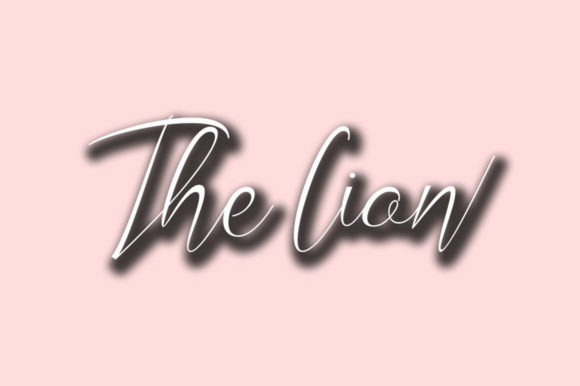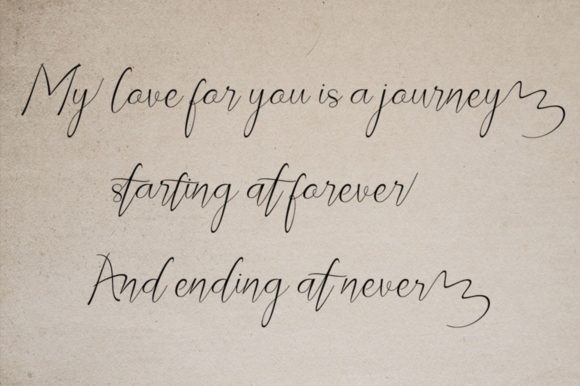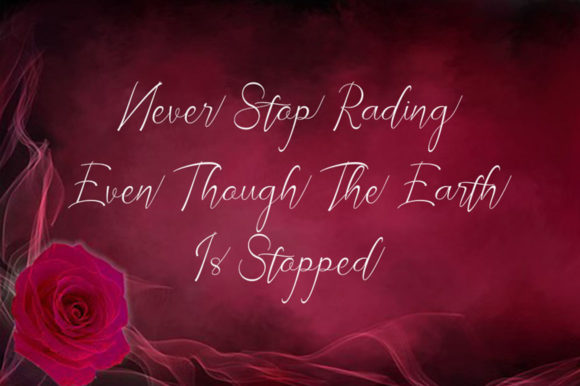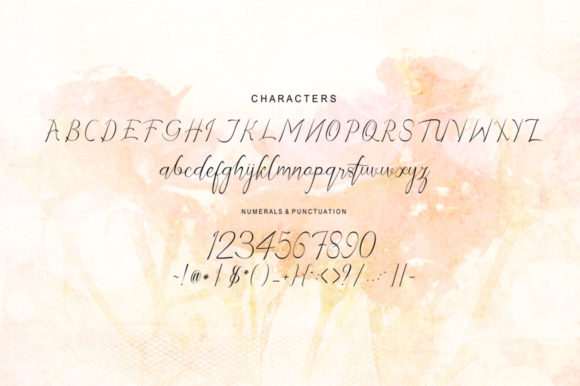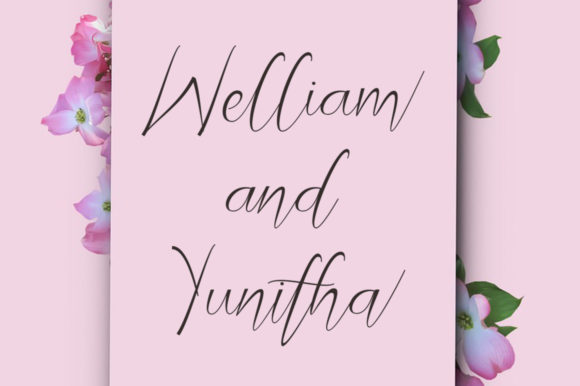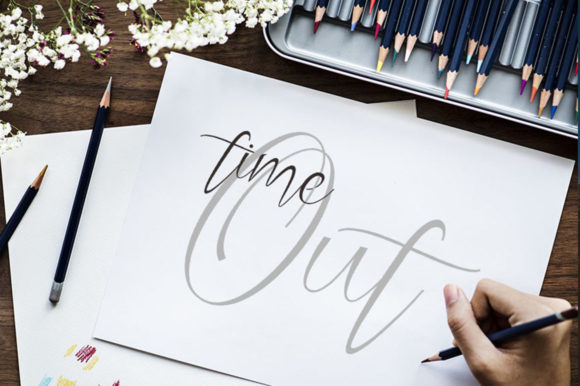
Discover the Elegance of Emithend Font: Elevate Your Designs with Luxurious Flair
The Emithend Font is a stunning script that combines fine lines with classic, modern, and feminine touches, making it the perfect addition to any designer’s toolkit. This beautiful font is designed to give your designs an luxurious feel, evoking a sense of sophistication and elegance. In this article, we’ll dive into the world of Emithend Font, exploring its features, uses, and benefits for designers and crafters.
The Characteristics of Emithend Font
The Emithend Font boasts a unique blend of classic and modern elements, making it a versatile and eye-catching choice for a wide range of design projects. Its fine lines and delicate curves give it a feminine touch, while its sleek and streamlined appearance ensures it remains modern and fresh. This font is perfect for designers who want to add a touch of luxury and sophistication to their work.
Uses of Emithend Font
The Emithend Font is incredibly versatile and can be used in a variety of design projects, including:
- Logos and branding: The Emithend Font’s luxurious feel makes it an excellent choice for logos and branding materials, helping to establish a high-end image for your business or product.
- Wedding and event invitations: The font’s elegant and sophisticated appearance makes it perfect for wedding and event invitations, adding a touch of romance and glamour to your designs.
- Packaging and product design: The Emithend Font can be used to create eye-catching packaging and product designs that stand out on store shelves and online.
- Advertising and marketing materials: The font’s luxurious feel makes it an excellent choice for advertising and marketing materials, helping to elevate your brand’s image and appeal to high-end clients.
Benefits of Using Emithend Font
The Emithend Font offers a range of benefits for designers and crafters, including:
- Elegance and sophistication: The font’s luxurious feel adds a touch of elegance and sophistication to any design project.
- Versatility: The Emithend Font can be used in a wide range of design projects, from logos and branding to packaging and advertising.
- Easy to read: The font’s clear and streamlined appearance makes it easy to read, even at small sizes.
- Unique and eye-catching: The Emithend Font’s unique blend of classic and modern elements makes it stand out from more traditional fonts.
Tips for Using Emithend Font
To get the most out of the Emithend Font, here are a few tips to keep in mind:
- Use it sparingly: The Emithend Font’s luxurious feel can be overwhelming if used excessively. Use it sparingly to add a touch of elegance to your designs.
- Pair it with complementary fonts: The Emithend Font pairs well with clean and modern fonts, such as sans-serif fonts.
- Experiment with different sizes and colors: The Emithend Font can be used at a range of sizes and colors, so don’t be afraid to experiment to find the perfect look for your design.
The Emithend Font is a stunning script that offers a unique blend of classic, modern, and feminine touches. Its luxurious feel makes it perfect for designers and crafters who want to add a touch of elegance and sophistication to their work. With its versatility, ease of use, and eye-catching appearance, the Emithend Font is an excellent addition to any designer’s toolkit.